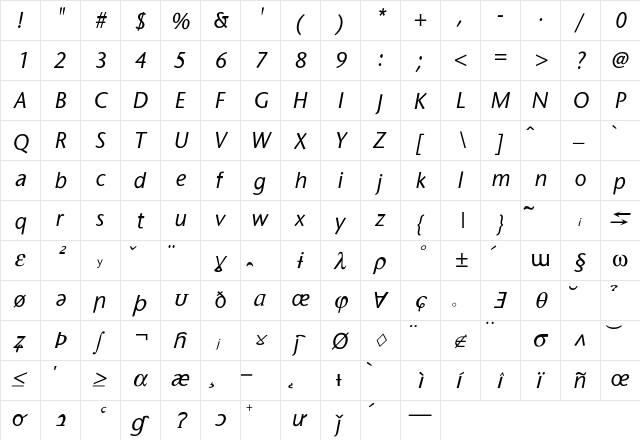
SapirSansItalic Regular
Design Context for SapirSansItalic Typeface
SapirSansItalic is a composed and adaptable typeface that performs quietly and consistently across a wide range of design contexts. The slanted form adds forward momentum and visual energy.
Pro Tip: Use SapirSansItalic for emphasis, pull quotes, and subheadings where its slanted energy can add rhythm to the layout.